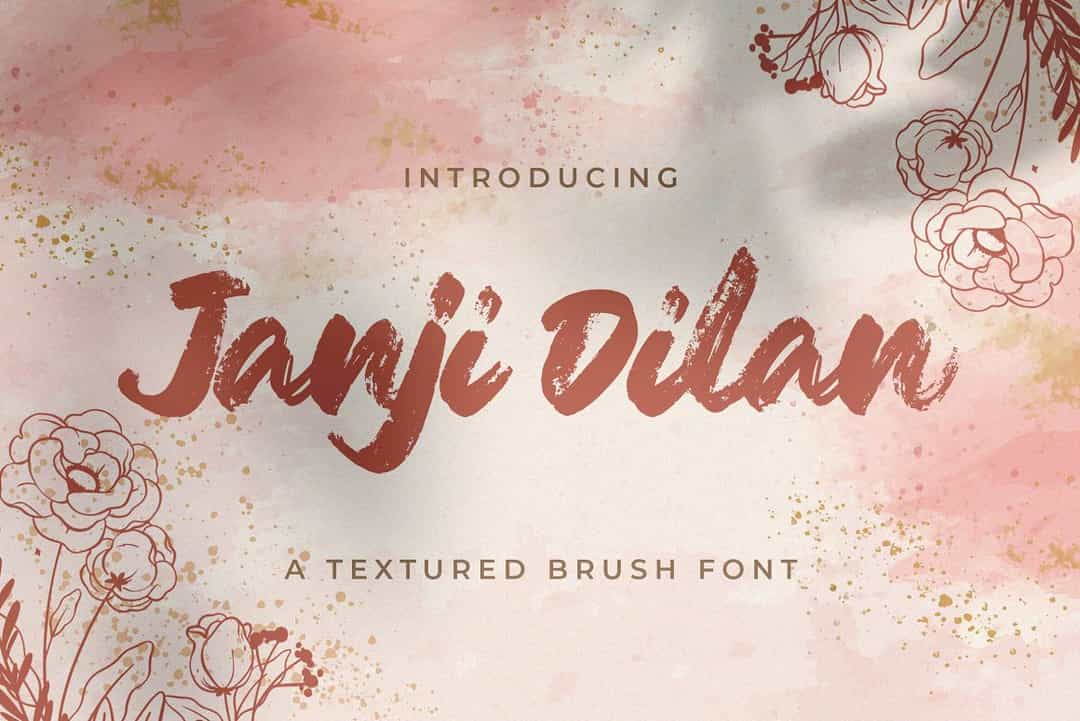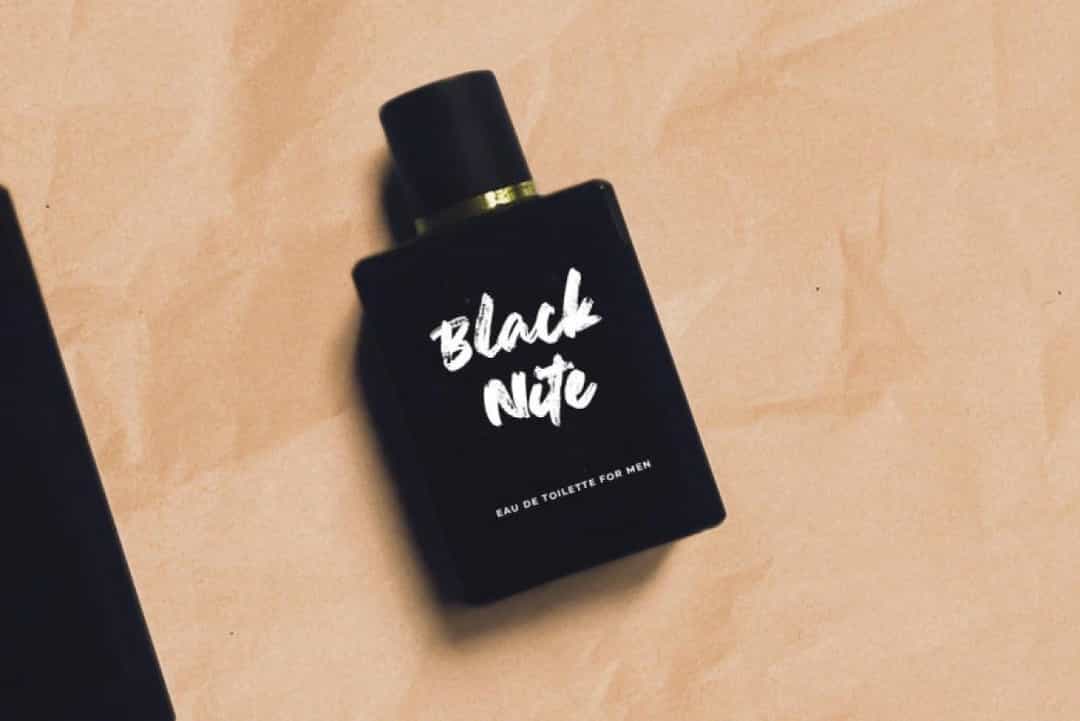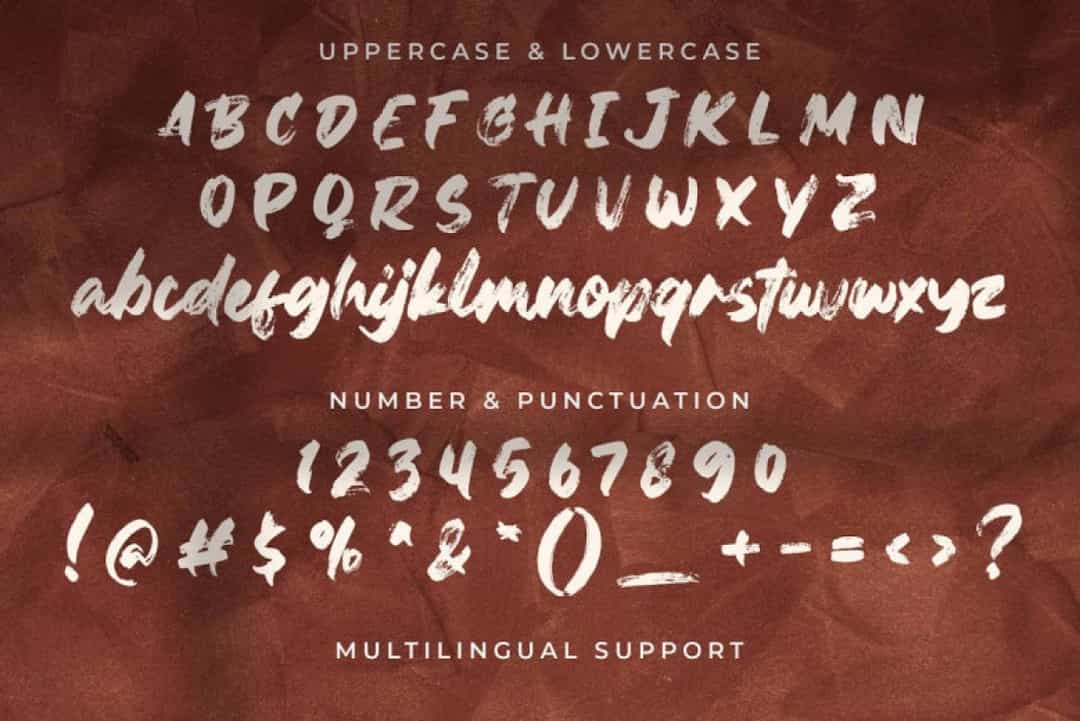
Janji Dilan font is an elegant brush-based font perfect for adding some fun and excitement to designs that require a cheerful element, such as cartoon-themed graphics, children’s game titles, quotes or brand names, books posters book covers or any other projects needing an injection of cheery. This font can help bring these elements together in beautiful fashion!